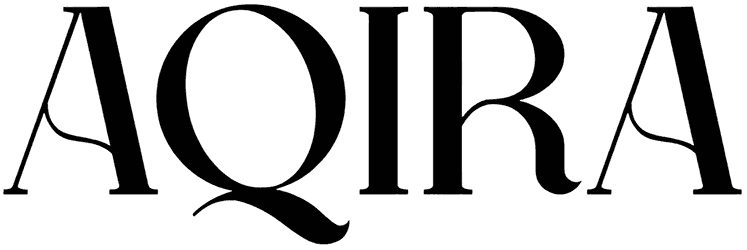
Adventure into real life with the elegant hand-lettered feature of Hunterlost. This gorgeous fashion font comes with a full set of practical characters and supports multilingual, meanwhile it isn’t legible in extensive writing. It has a creative, natural, and friendly feel, making it the best option for wedding invitations, branding, signature, fashion magazine, and much more stylish designs.